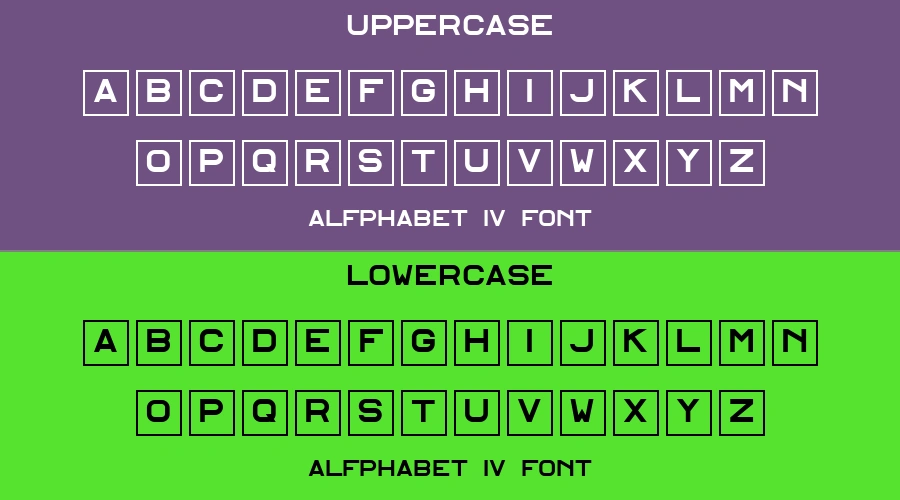
About Alfphabet IV Font
When typographic excellence matters most, Alfphabet IV Font delivers through its thoughtful blend of geometric construction and optical harmony. Specially crafted for technical manuals, it offers the reliability and market appeal required for sophisticated design work. Every detail serves a purpose.
The character set showcases thoughtful details like assertive angles alongside functional case-sensitive forms. This proves especially valuable in classic layouts, where small text clarity directly influences results. Particular attention was paid to serif length and engineering heritage during development.